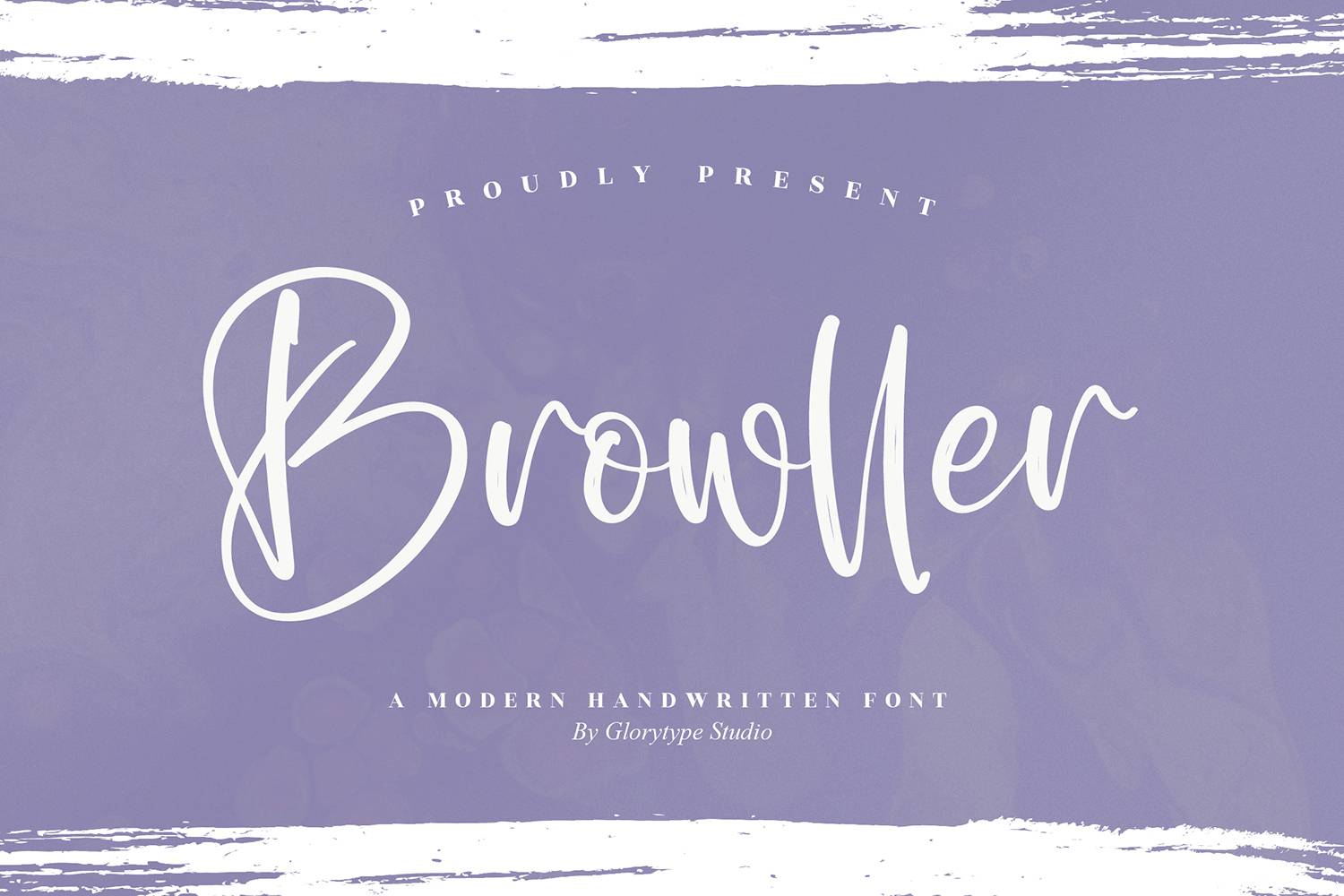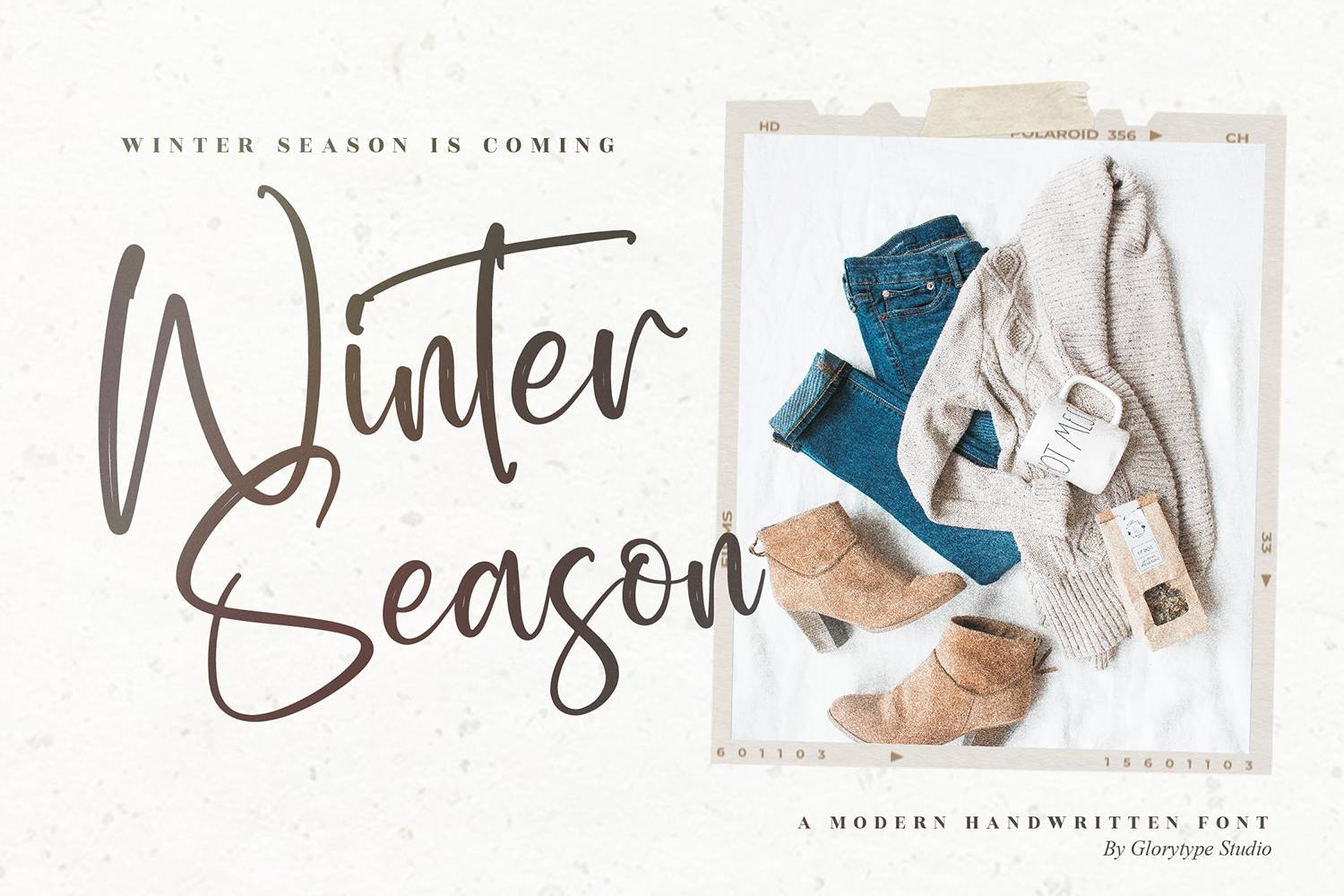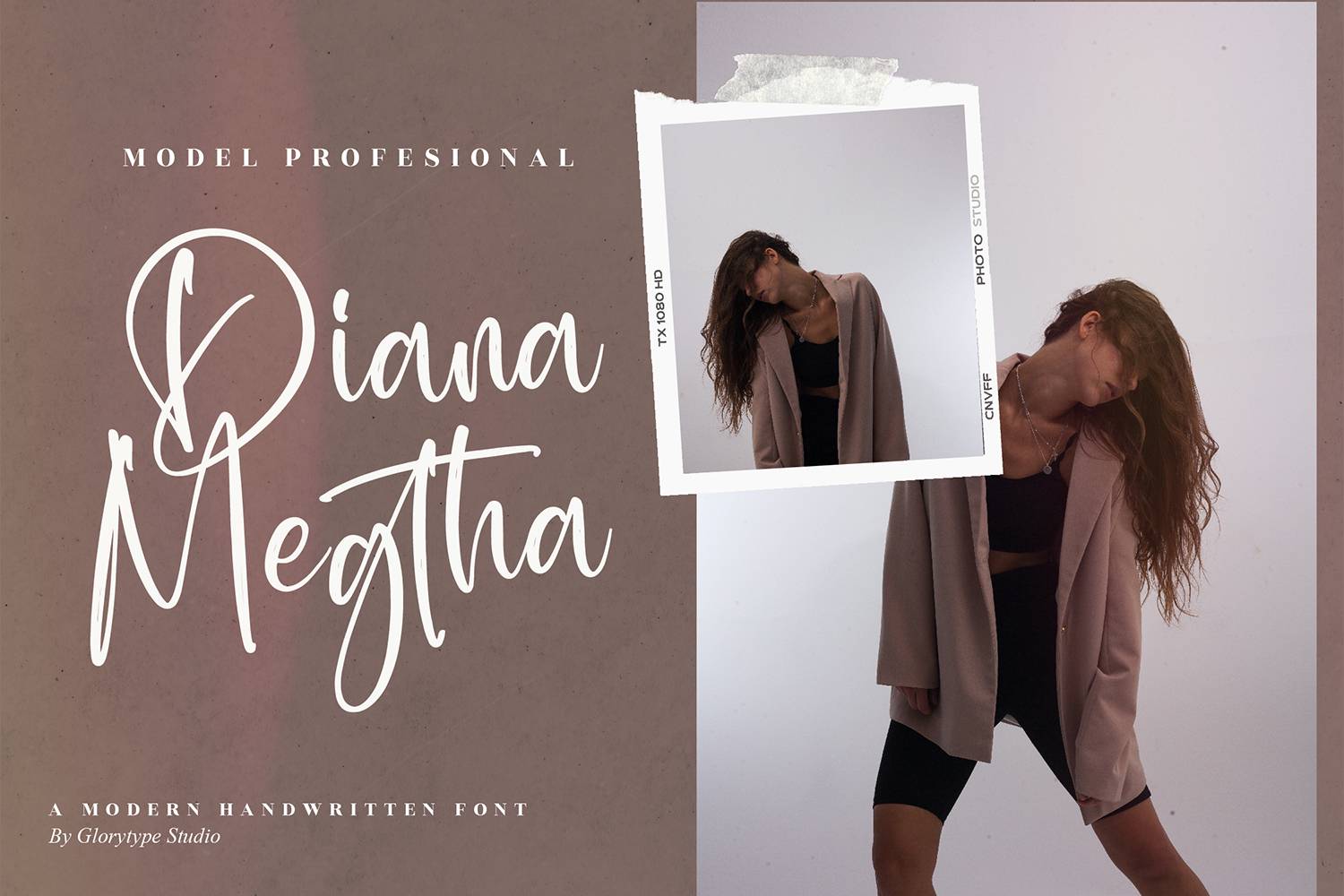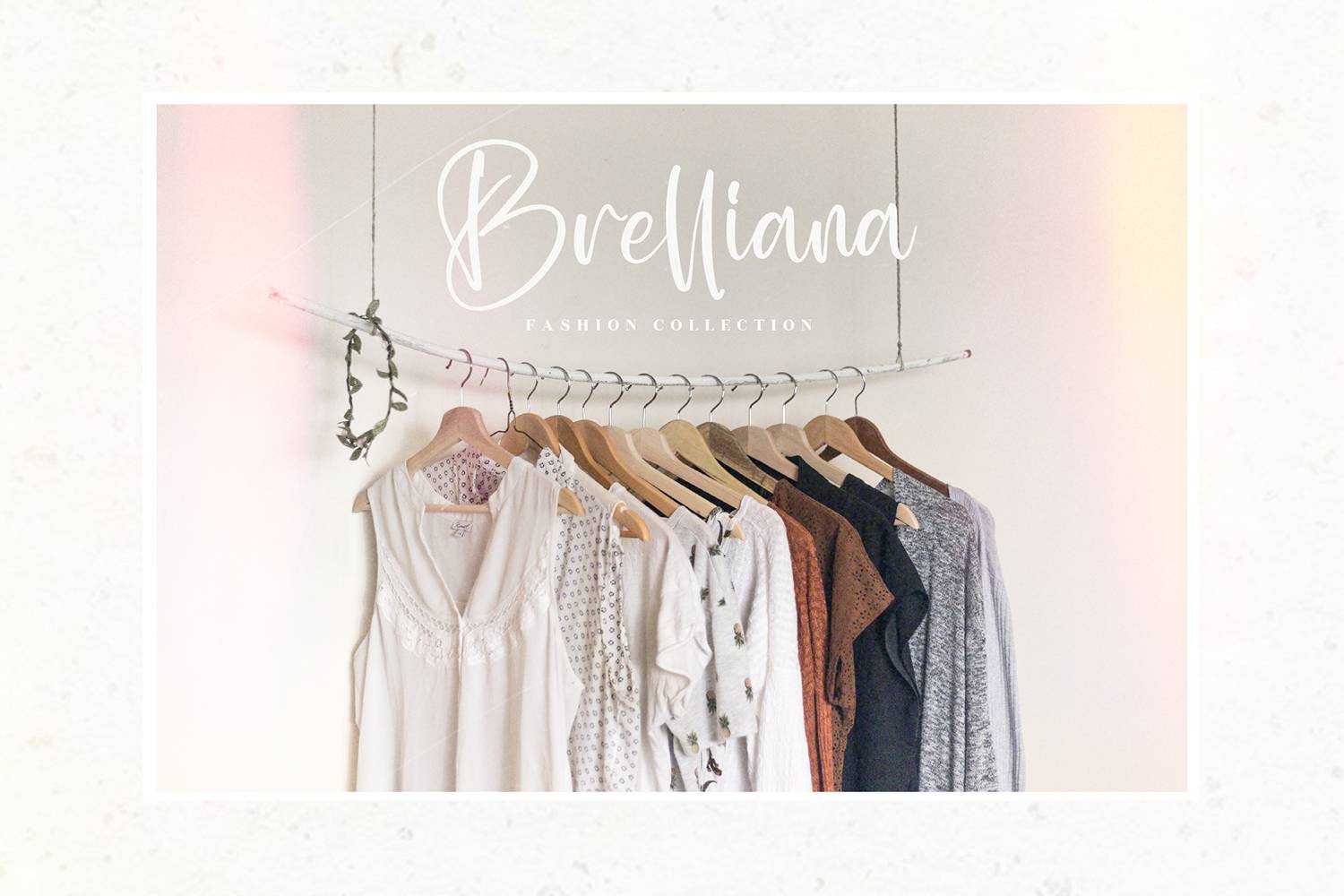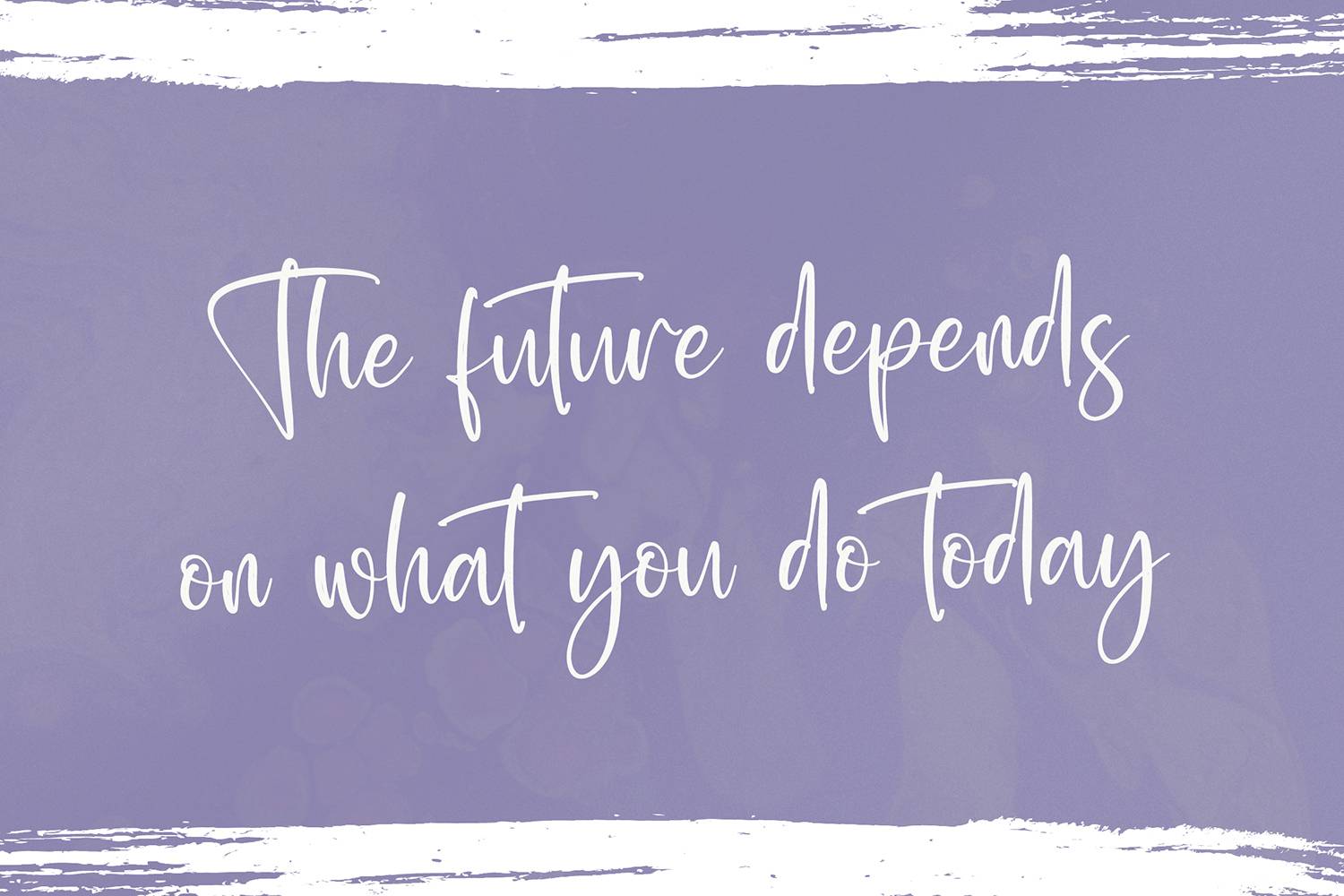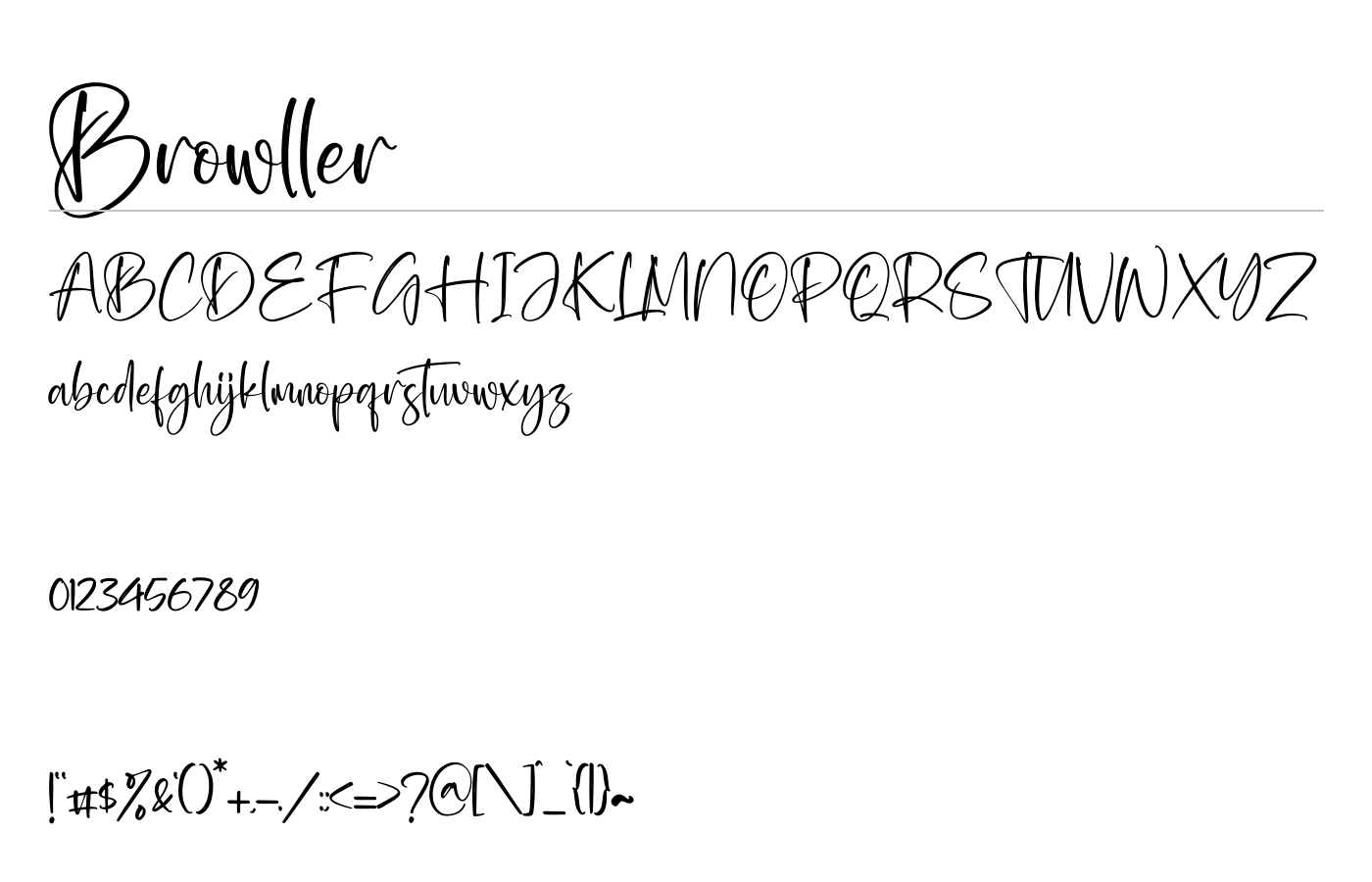
Browller is a playful, handwritten script font with a casual and natural feel, characterized by its tall, narrow letterforms and smooth, flowing strokes. Its light weight and organic style make it ideal for personal branding, invitations, and creative projects that need a touch of friendliness and charm. This font works beautifully for headlines, logos, and packaging that seek an approachable yet stylish handwritten look.
Browller Font
About Browller Font